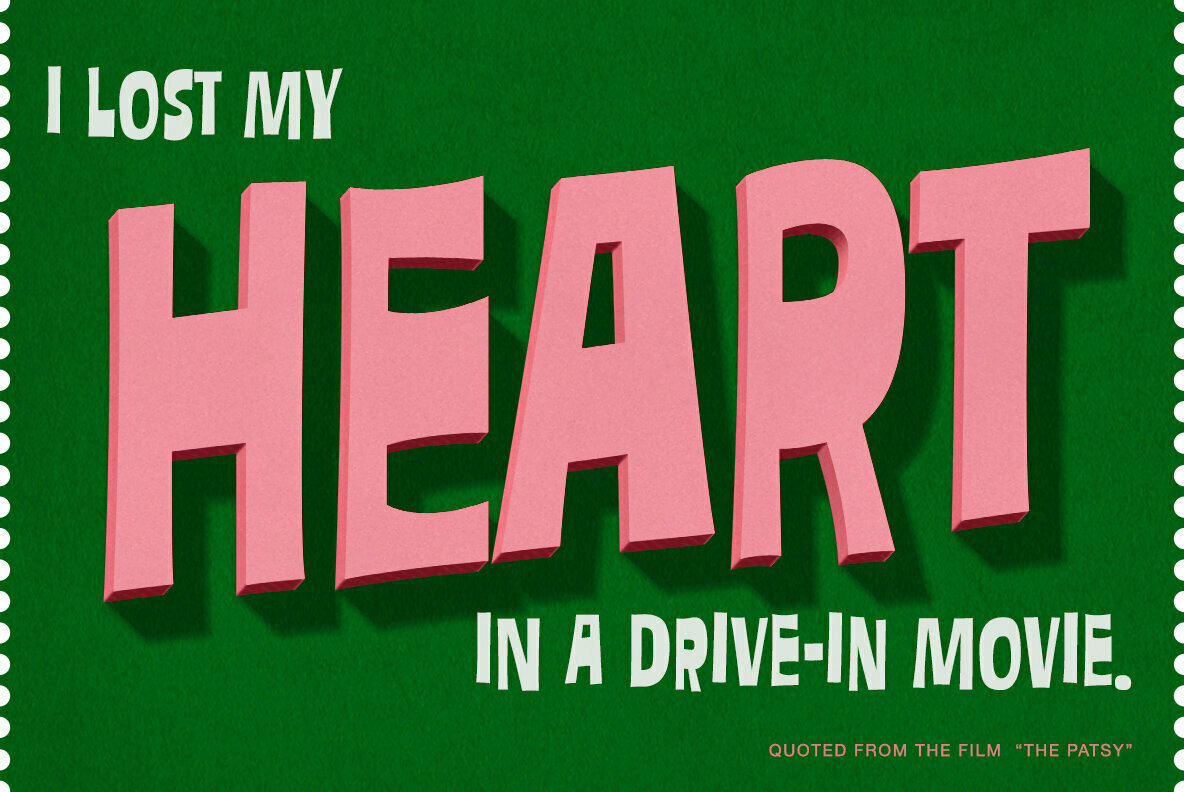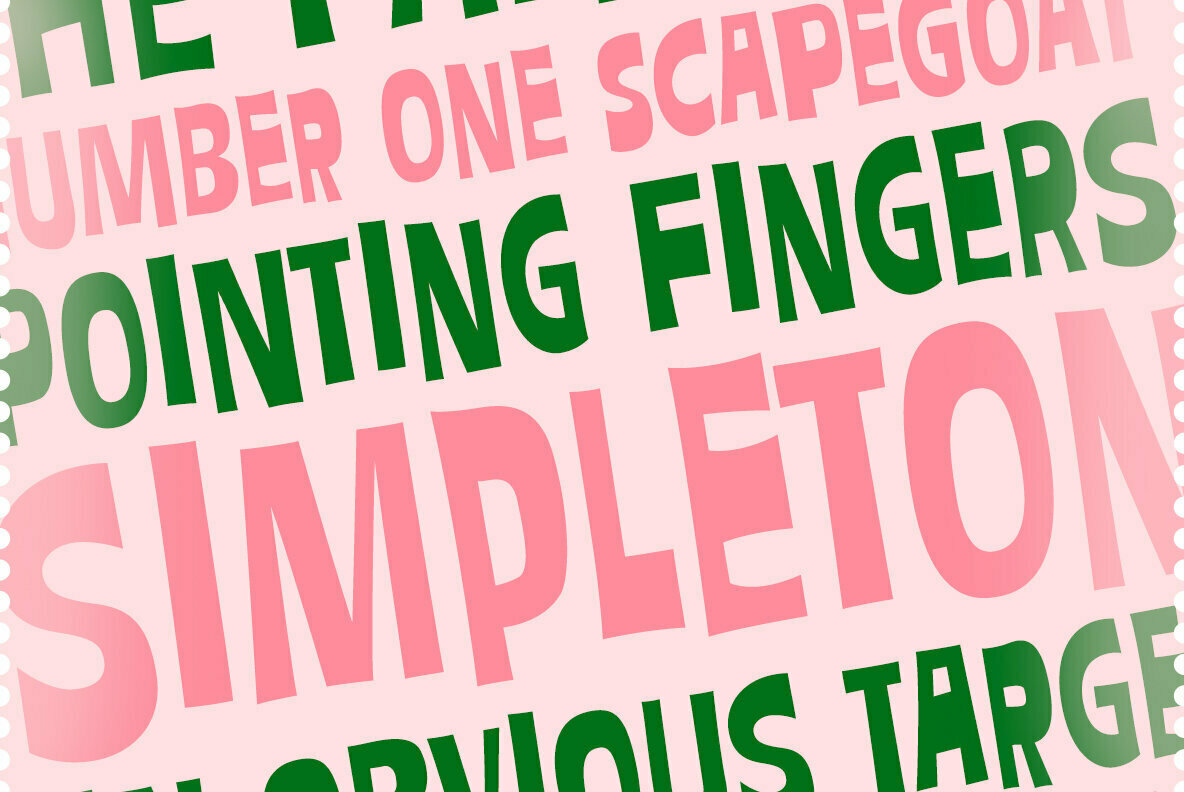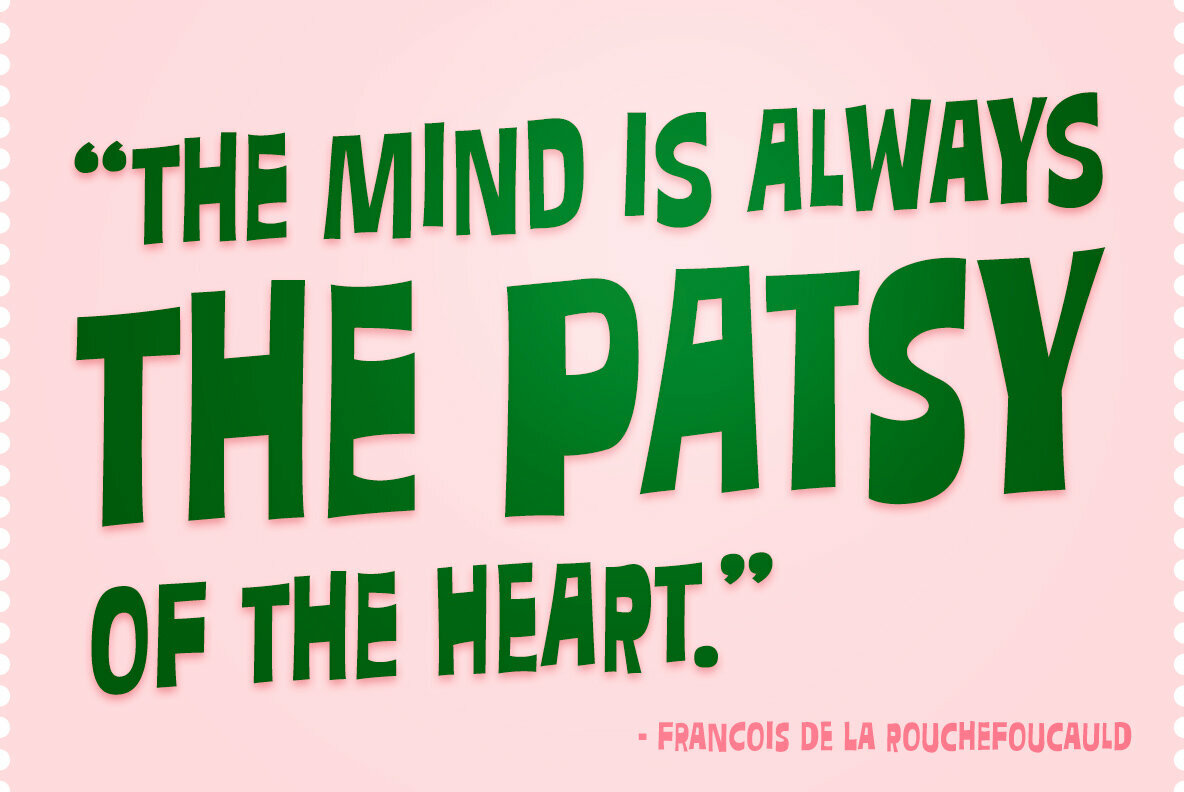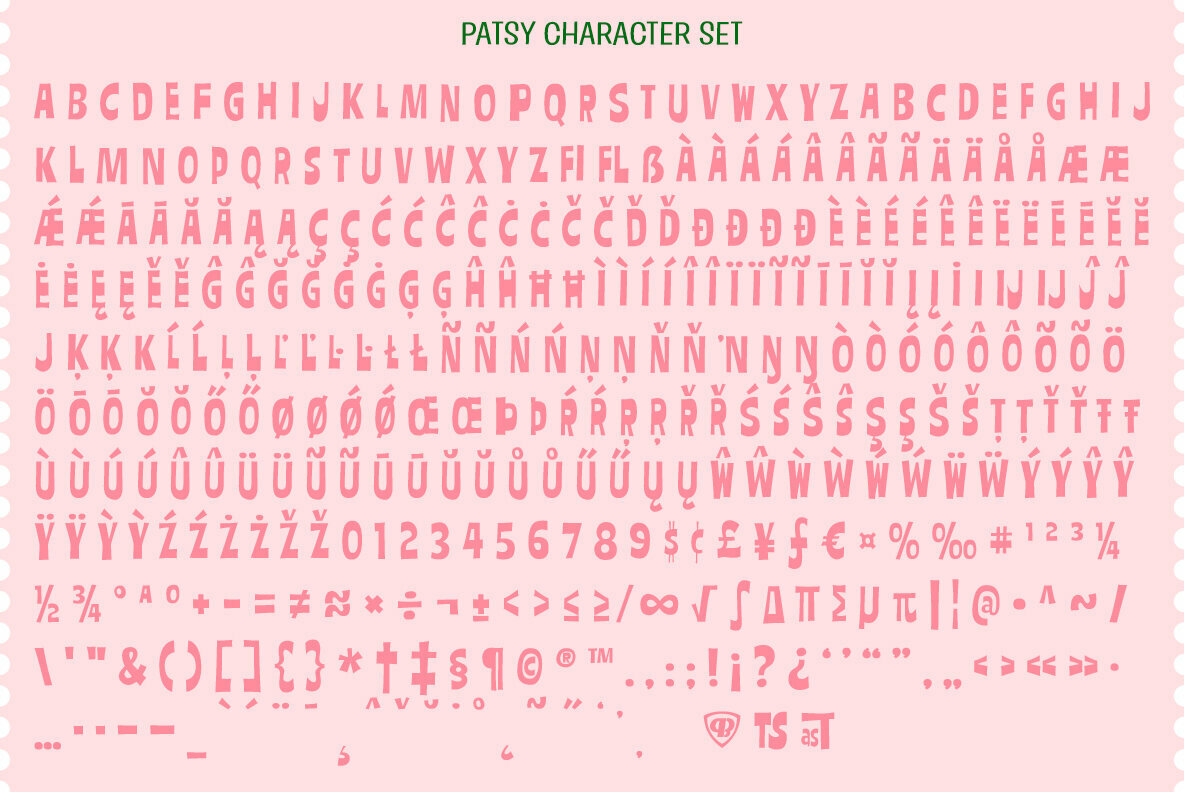
Patsy PB Font
Patsy PB
Patsy is a quirky sans-serif font inspired by the titling sequence from the 1964 film, "The Patsy", starring Jerry Lewis. Heavyweight, yet fun and full of personality, it was a lettering styles that was so much fun to flesh out and make into a typeface. I've opened up the letter spacing lightly from the original film poster design for better readability at a range of sizes.
With an alternating all-caps character set, and offbeat letter weighting, Patsy is fun to typeset with as the font auto-switches between Capitals and Lowercase (alternate capitals) no matter if you type all caps or all lowercase.